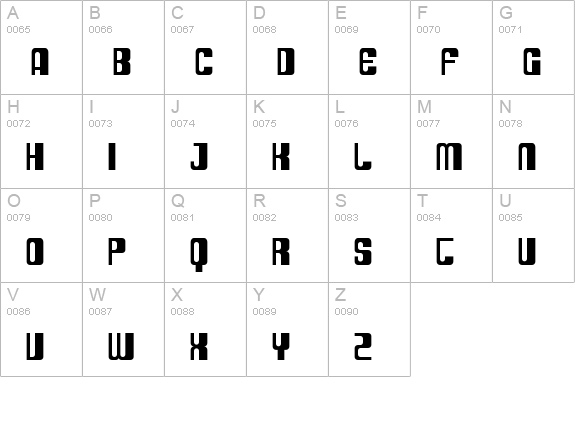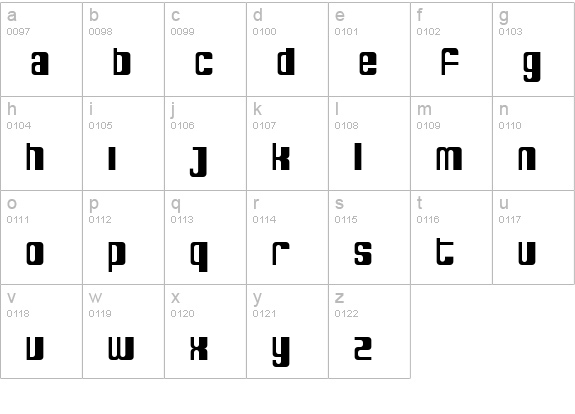
SF DecoTechno Font Details
SF DecoTechno is a captivating and futuristic font that combines elements of Art Deco and Techno styles. Its sleek and geometric design evokes a sense of sophistication and innovation, making it perfect for projects that require a modern and cutting-edge aesthetic. With its clean lines and bold letterforms, SF DecoTechno commands attention and adds a touch of intrigue to any design. Whether you are creating a logo, branding materials, or digital artwork, this font will effortlessly elevate your work to new heights. What sets SF DecoTechno apart is that it is not only visually stunning but also freely available to download at FontsMarket.com. This means that you can incorporate this striking font into your projects without any cost, making it an incredible asset for designers, students, and anyone seeking high-quality typography that won't break the bank. The versatility of SF DecoTechno allows it to be used in a variety of contexts. Its sharp edges and futuristic vibe make it a popular choice for technology-related projects, while its Art Deco influences add a touch of elegance and nostalgia to any design. This font truly bridges the gap between the past and the future, offering a timeless appeal that will never go out of style. SF DecoTechno is available in multiple weights, allowing you to choose the perfect thickness for your specific needs. Its legibility and distinct character shapes ensure that your message will be conveyed with clarity and impact. Whether you are a professional designer or a casual enthusiast, SF DecoTechno is a font that you don't want to miss. Download it for free at FontsMarket.com and unlock a world of possibilities for your creative endeavors. Let SF DecoTechno be your secret weapon in creating visually striking and unforgettable designs.